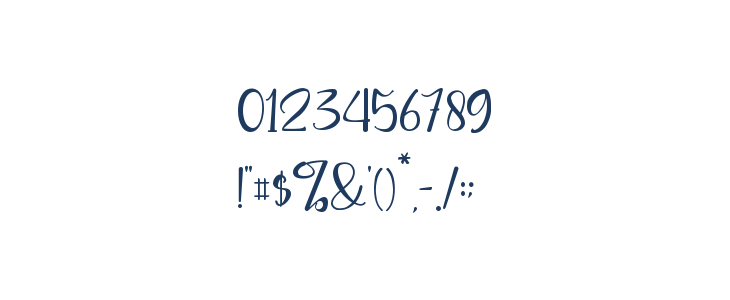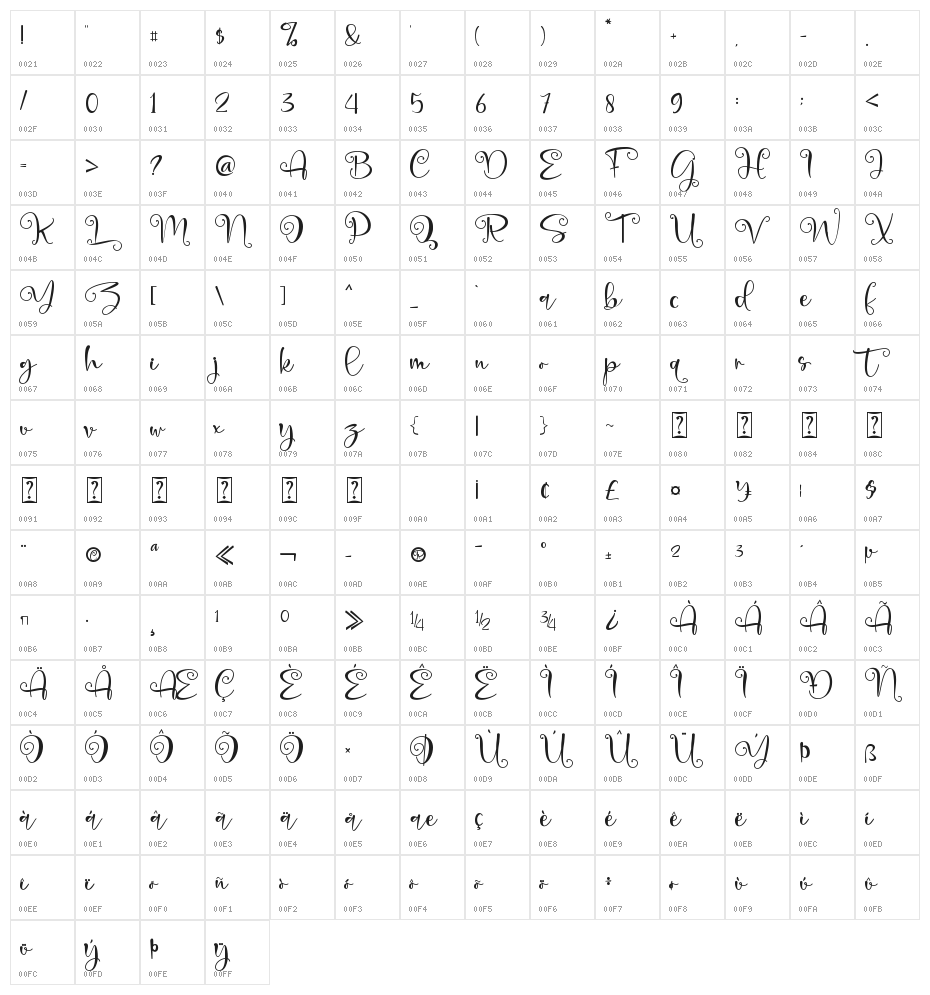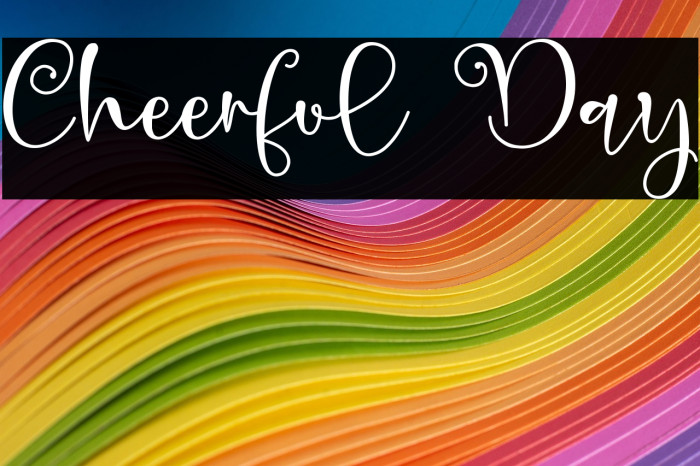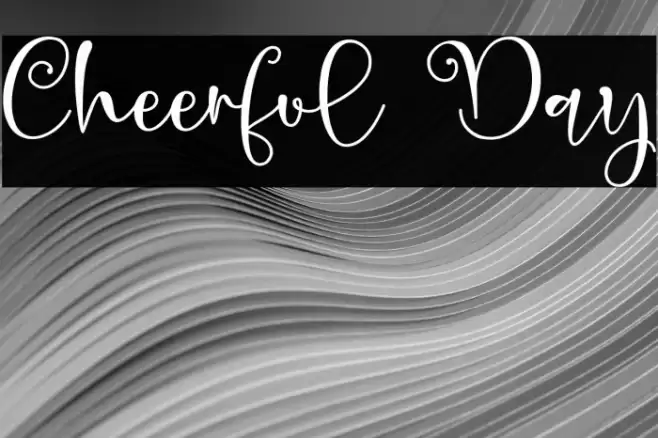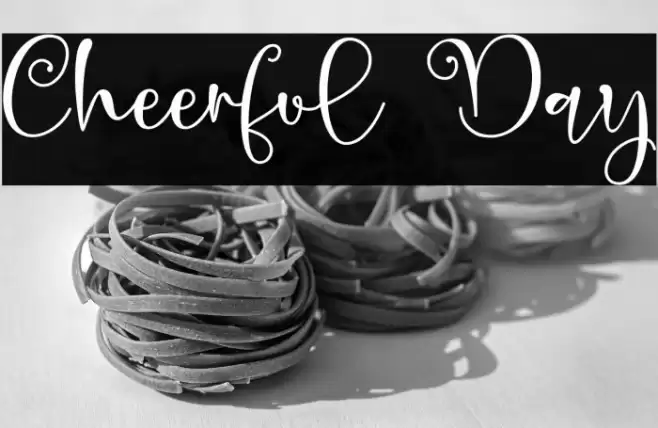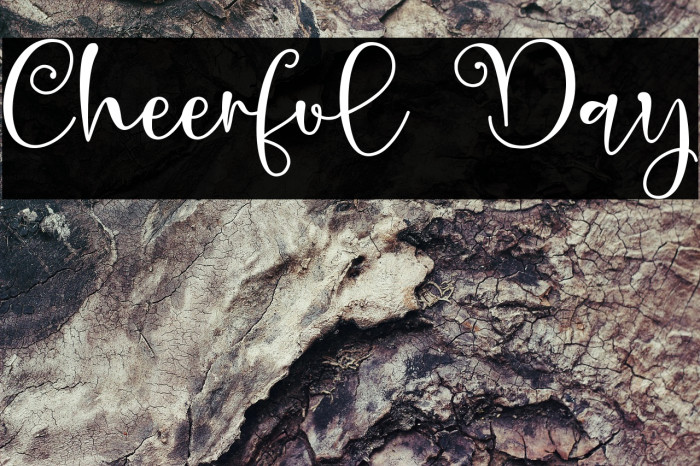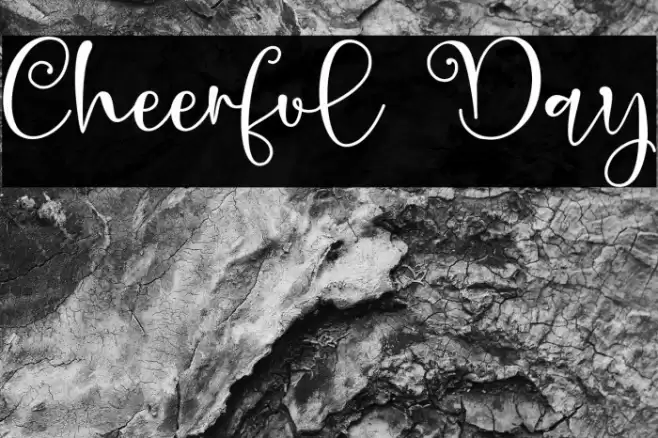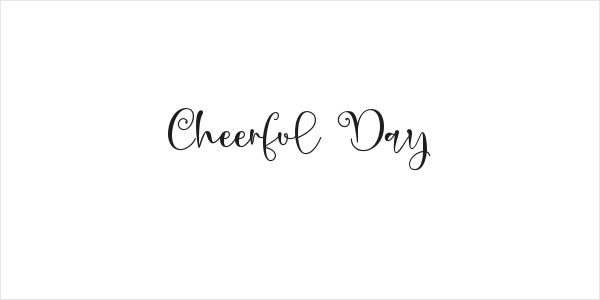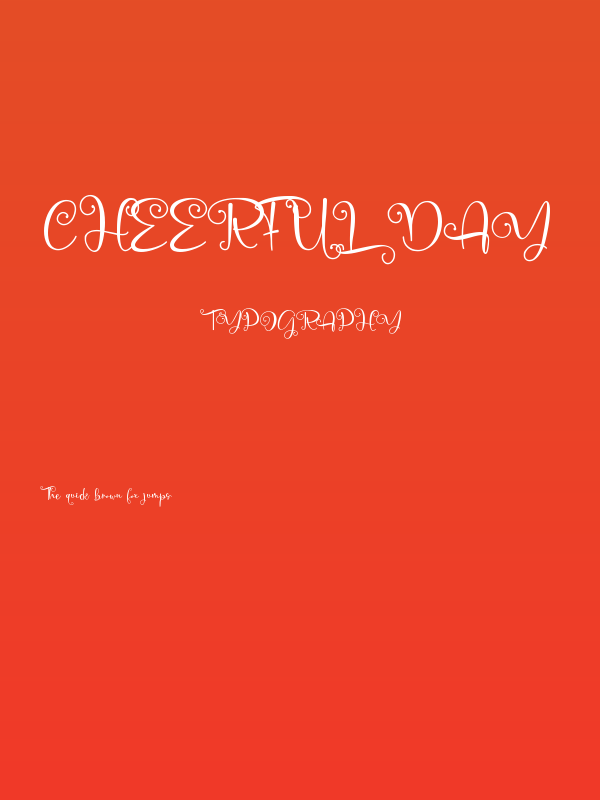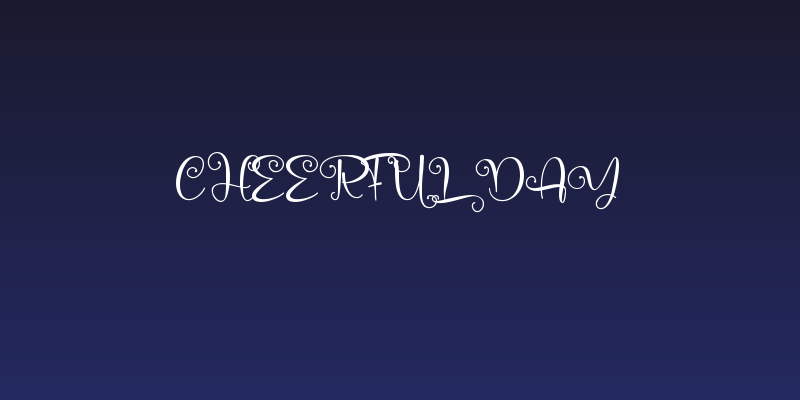
Cheerful Day Font
Cheerful Day Description
This font exudes a playful and whimsical charm, characterized by its flowing, cursive script style. The uppercase letters feature elegant loops and swirls, adding a touch of sophistication and creativity. The lowercase letters maintain a consistent flow with a slightly more relaxed and casual appearance. Numbers and special characters are designed to complement the overall style, maintaining the same playful and artistic flair. The font's design is perfect for projects that require a personal, handcrafted feel, making it ideal for invitations, greeting cards, and creative branding.